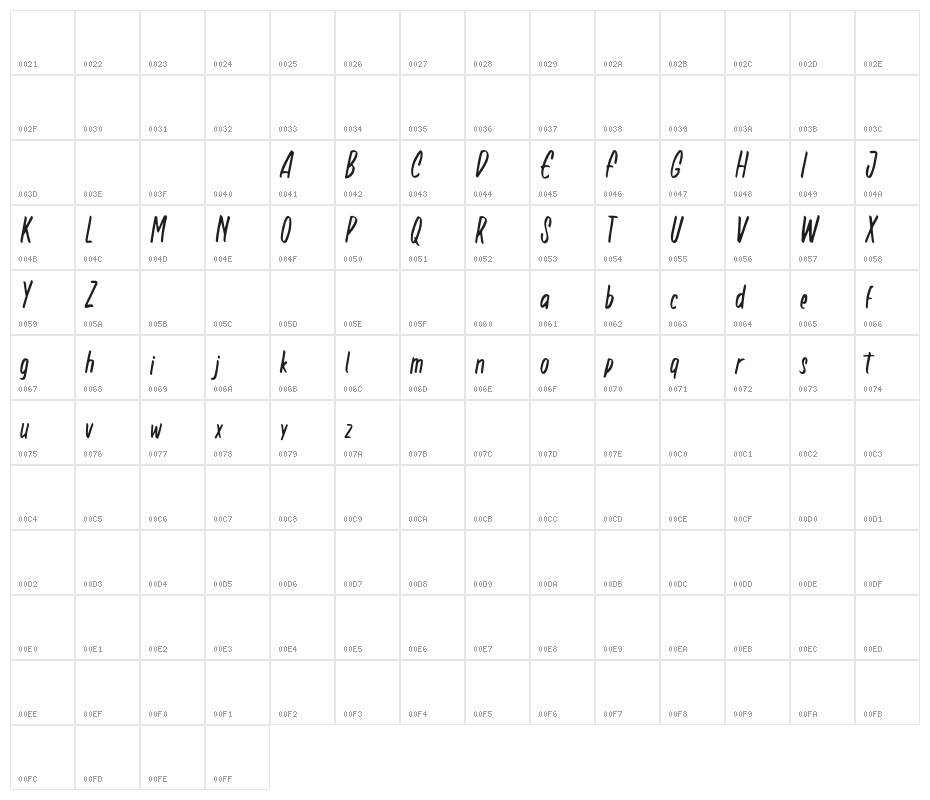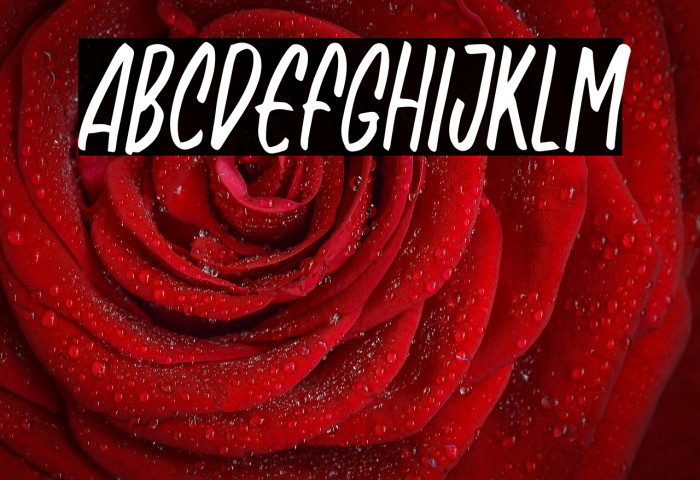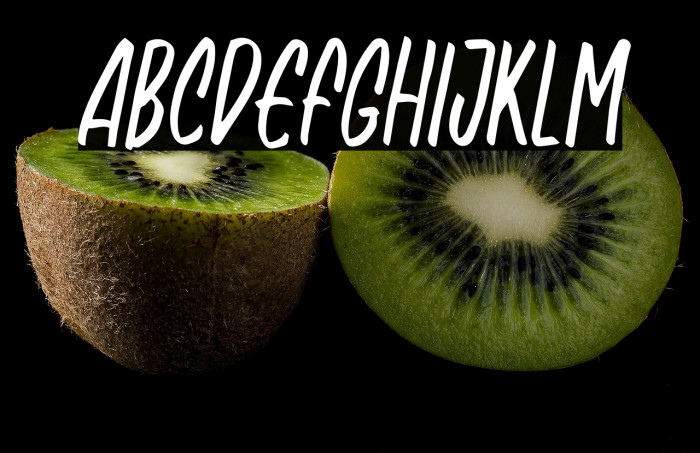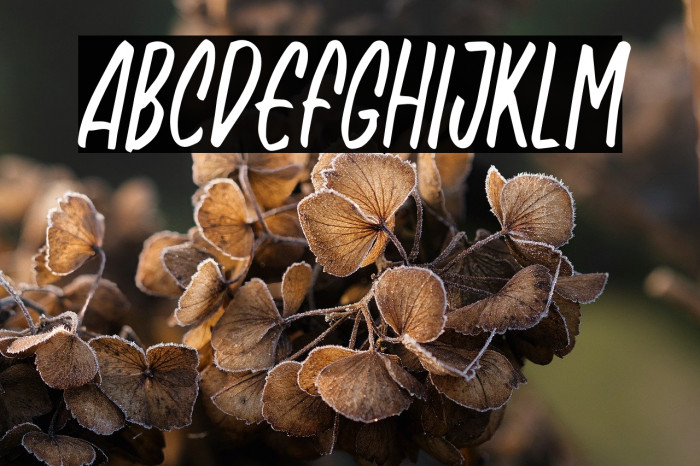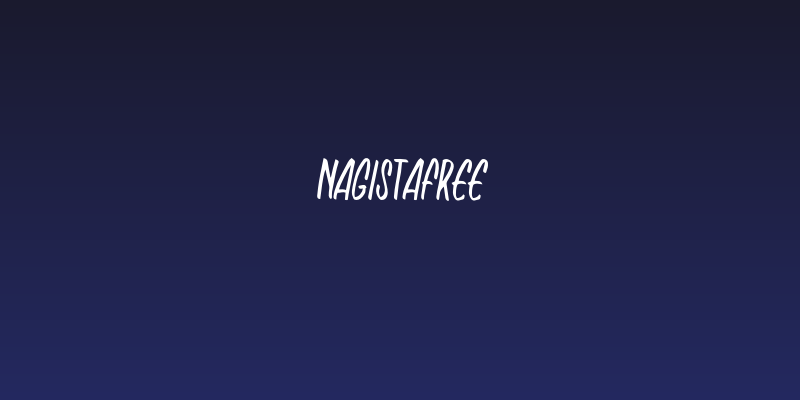
NagistaFREE Font
NagistaFREE Description
This font exhibits a playful and energetic style with a handwritten appearance. The characters are slightly slanted, giving a dynamic and informal feel. The strokes are smooth and consistent, with a medium thickness that provides good readability. The uppercase letters are bold and prominent, while the lowercase letters maintain a casual flow. This font is suitable for projects that require a personal touch, such as invitations, greeting cards, or creative branding. The overall design is modern and approachable, making it versatile for various applications.
| Proposed Projects | Ideal for invitations, greeting cards, creative branding, and personal projects. |